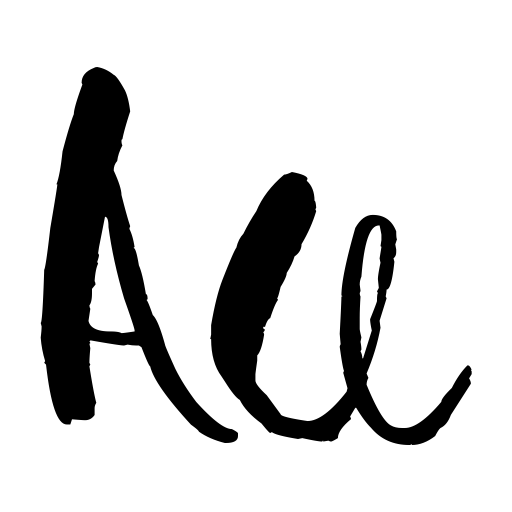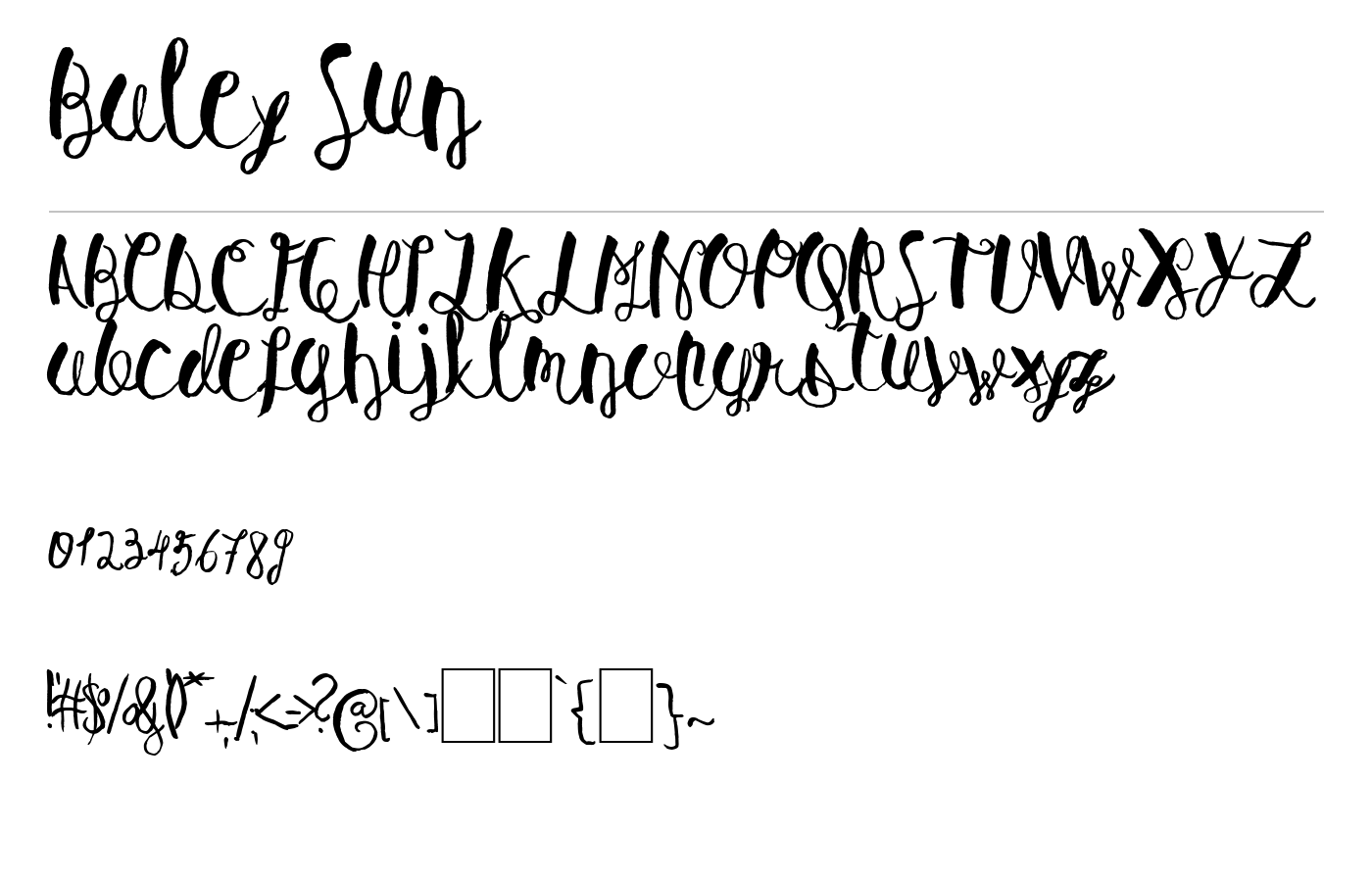
Baley Sun is a whimsical, hand-drawn script font characterized by its playful, handwritten style with varying stroke thickness and lively loops. Its casual and artistic flair makes it perfect for creative projects like greeting cards, invitations, and branding that seek a personal, friendly, and approachable vibe. This font shines best in headline or decorative use where its unique personality can truly stand out.
Baley Sun Font